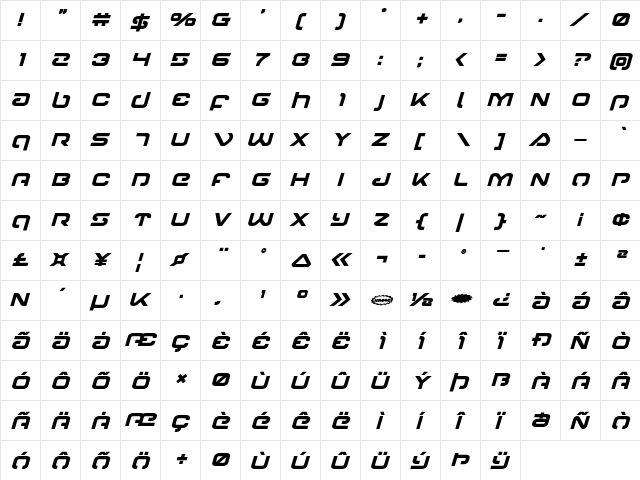
Gunrunner Bold Italic Font Preview
Design Context for Gunrunner Bold Italic Typeface
Gunrunner Bold Italic takes a measured approach to typography — its balanced proportions and neutral character make it a reliable workhorse for both digital and print work. The slanted form adds forward momentum and visual energy. The heavy weight commands attention and anchors typographic hierarchies.